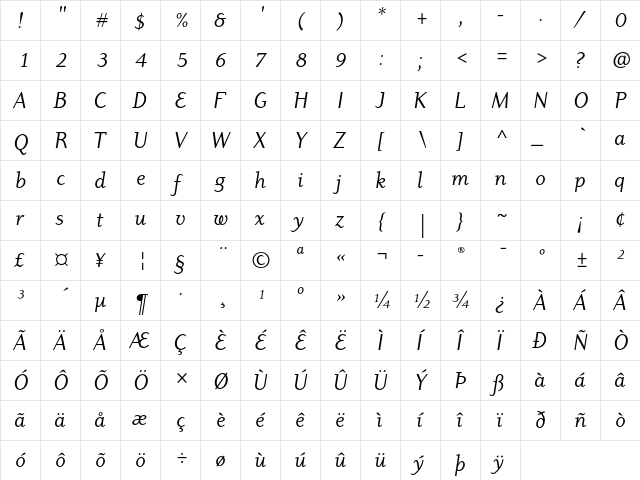
Dyadis ITC Std Book Italic
| Designer | Yvonne Diedrich |
Design Context for Dyadis ITC Std Typeface
Dyadis ITC Std is a composed and adaptable typeface that performs quietly and consistently across a wide range of design contexts. Its italic angle brings a sense of urgency and motion to the letterforms.
Pro Tip: Use Dyadis ITC Std for emphasis, pull quotes, and subheadings where its slanted energy can add rhythm to the layout.